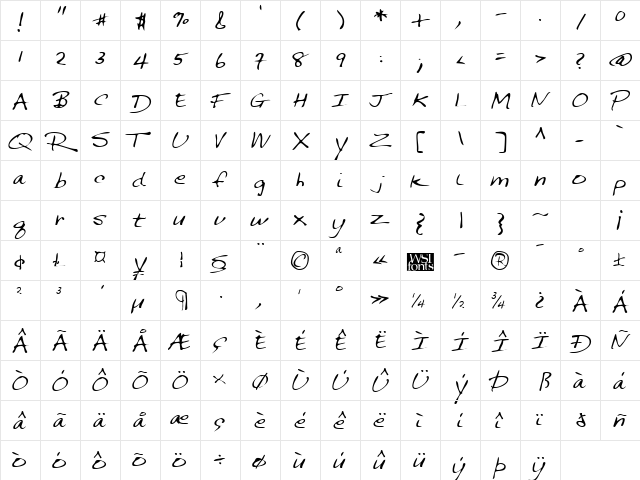
JeremysHand Regular
Design Context for JeremysHand Typeface
JeremysHand flows with the natural rhythm of handwritten lettering, making it ideal for designs that call for warmth and personal expression.
Font Pairing: Combine JeremysHand with a simple geometric sans for maximum contrast — the tension between flowing curves and clean structure is a classic typographic pairing.
Pro Tip: Pair JeremysHand with a clean sans-serif for supporting text. The contrast between fluid script and geometric structure creates an elegant typographic hierarchy.